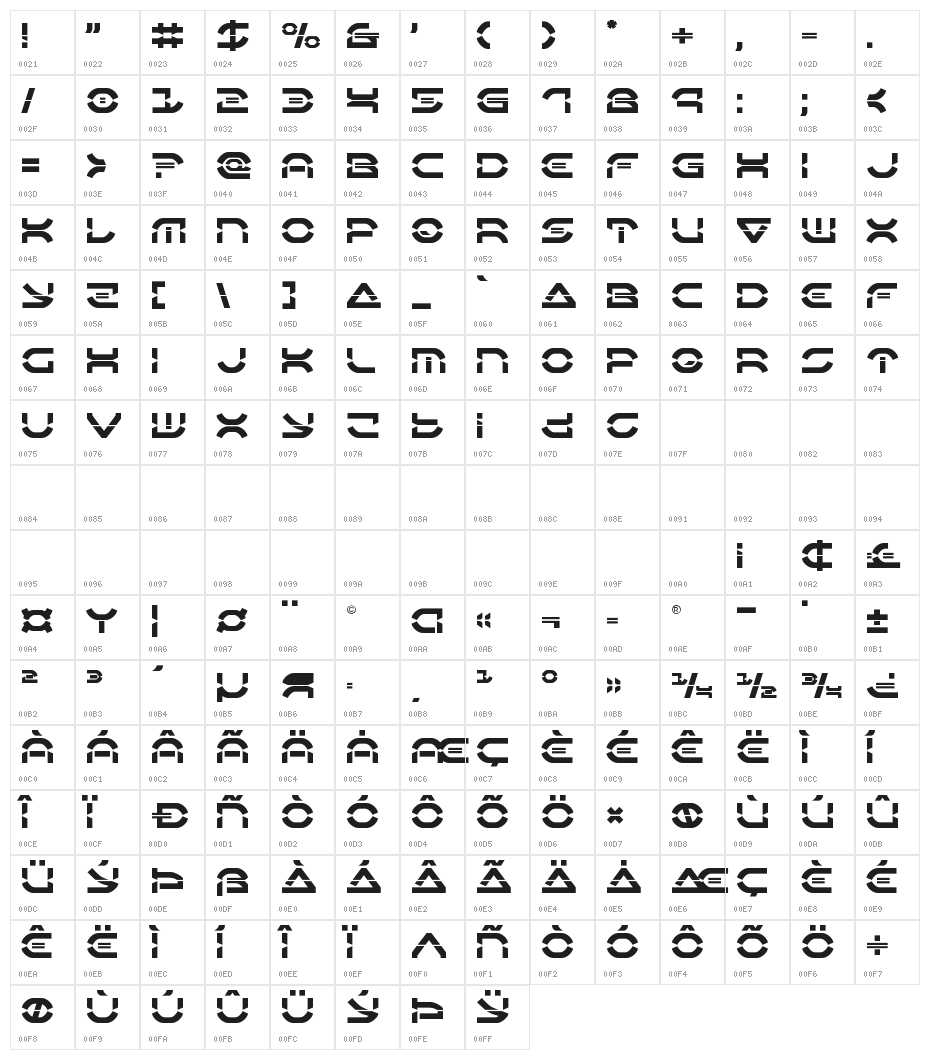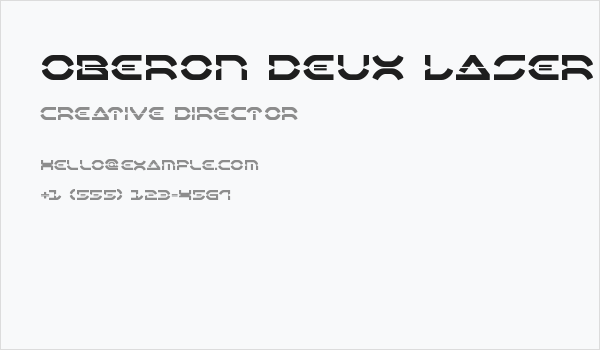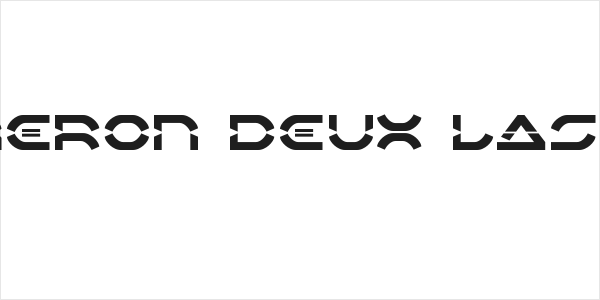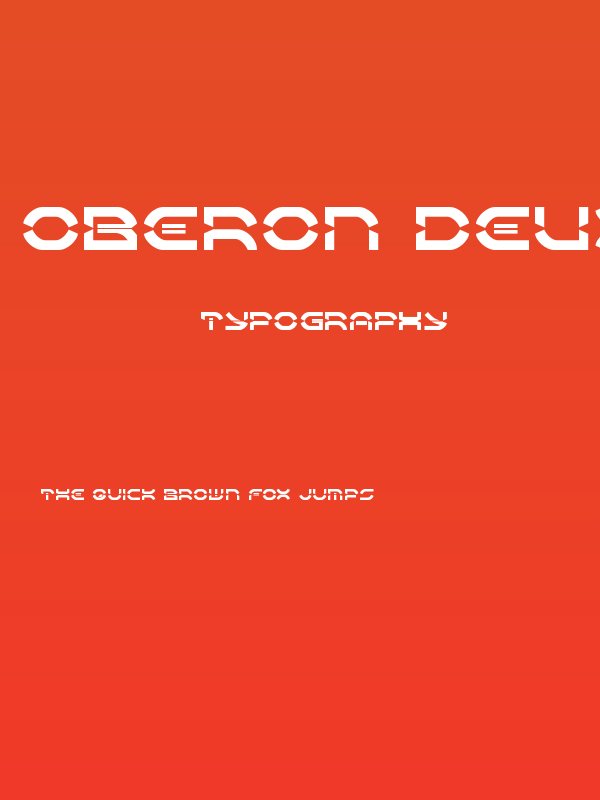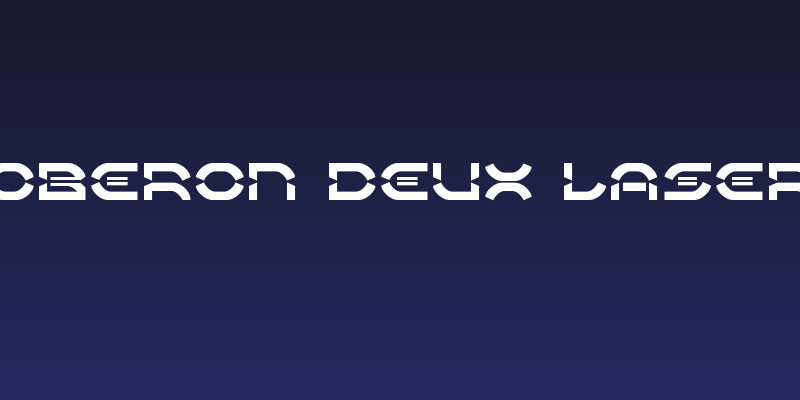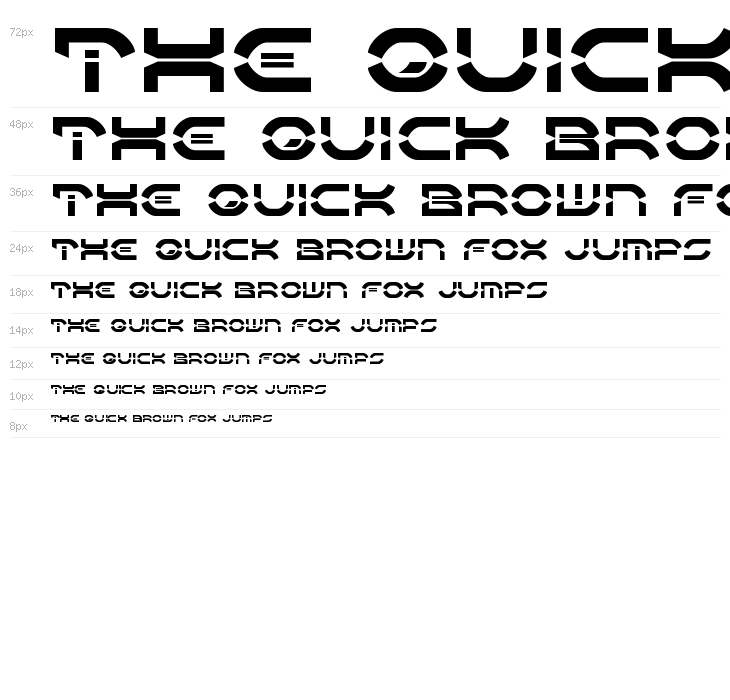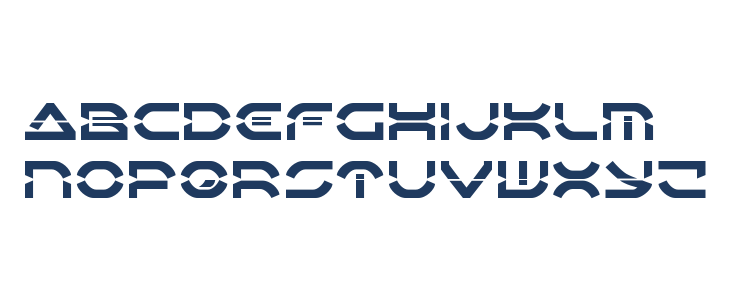
Oberon Deux Laser Font
Oberon Deux Laser Description
This font features a futuristic and geometric design, characterized by its bold and angular letterforms. The characters are constructed with a combination of solid and cut-out shapes, creating a stencil-like appearance. The use of sharp angles and straight lines gives it a modern and tech-inspired look. The uppercase and lowercase letters maintain a consistent style, with a uniform width and spacing that enhances readability. The numerals and special characters follow the same design principles, ensuring a cohesive visual identity across all glyphs. This font is ideal for projects that require a contemporary and edgy aesthetic.